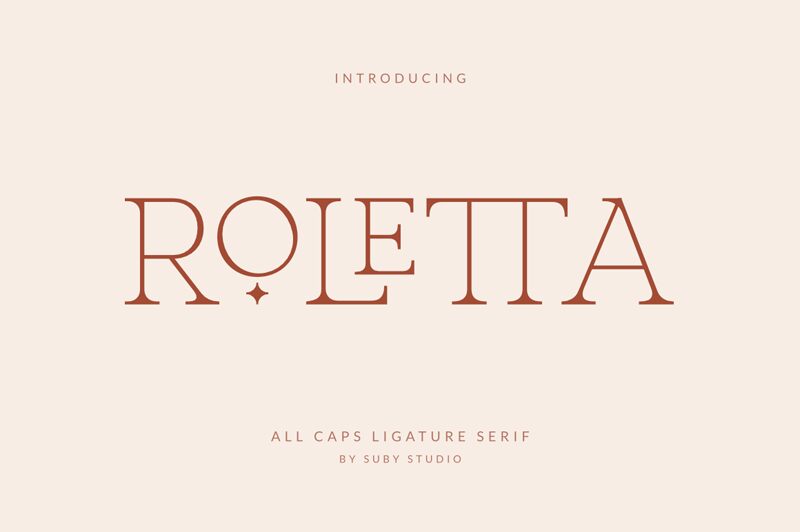
Roletta Regular
Roletta is a graceful serif font designed by Teguh Subiyantoro, perfect for adding a touch of elegance to your next project. Its light weight and refined curves make it ideal for anything from wedding invitations to high-end branding materials. Use Roletta to bring sophistication to your website, or add a touch of class to your print designs. This font is versatile enough for both body text and headlines, making it an essential addition to any designer's toolkit. With its timeless style and effortless beauty, Roletta is sure to elevate any project you use it in.